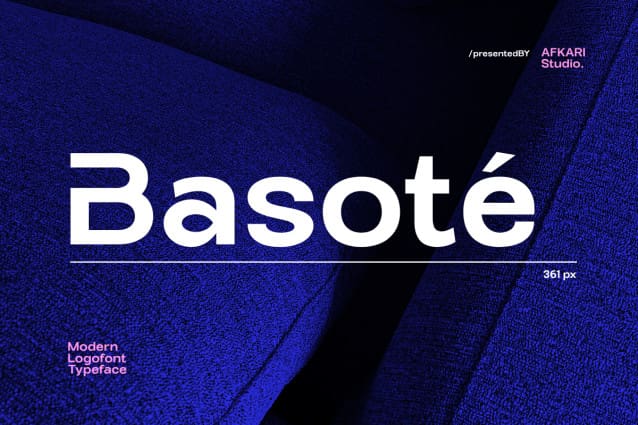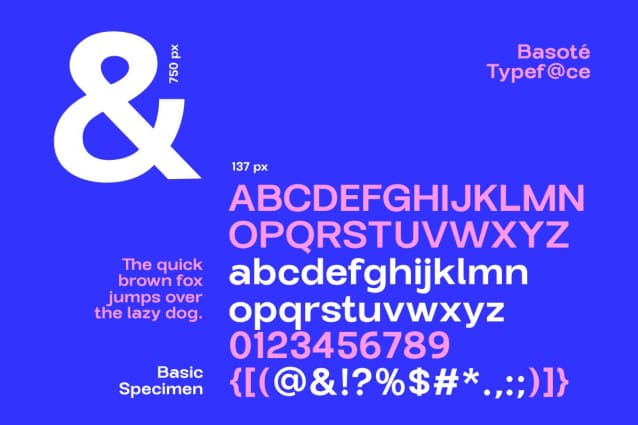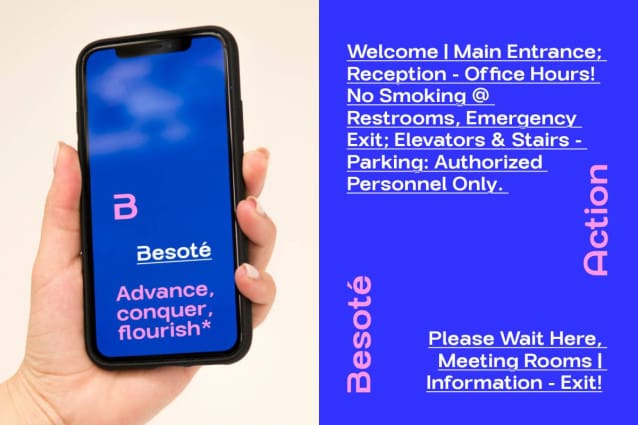
Basote Font
Basote Font – Modern Logo Font Typeface. Basote Font is a sleek, sophisticated typeface crafted specifically for modern logo design. Its clean lines and refined forms make it the perfect tool for creating iconic, memorable branding that exudes professionalism and contemporary style.
At its core, Basote embodies elegance and versatility, offering a balance between modern minimalism and impactful design. With smooth curves and precise geometry, it’s ideal for brands aiming to leave a lasting impression across multiple platforms and media.